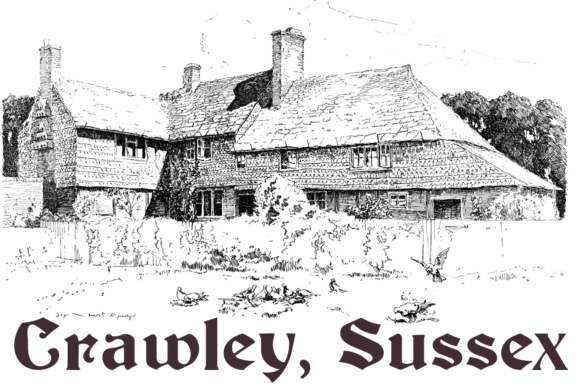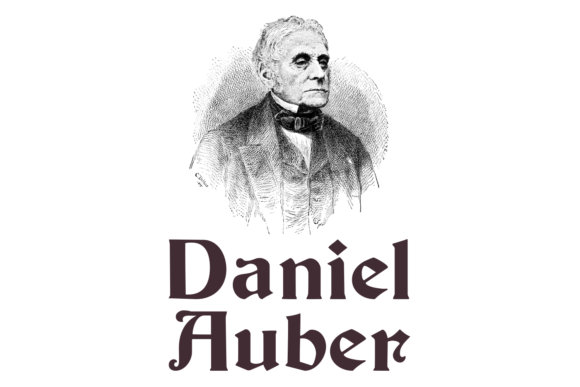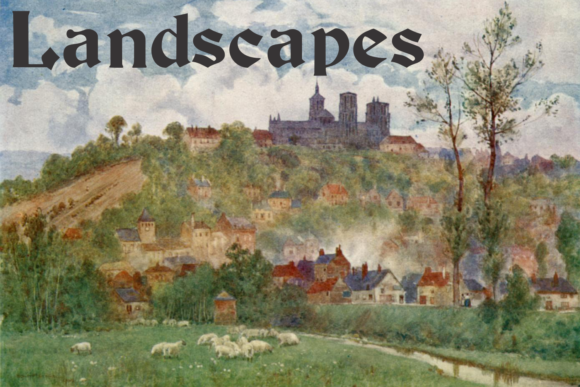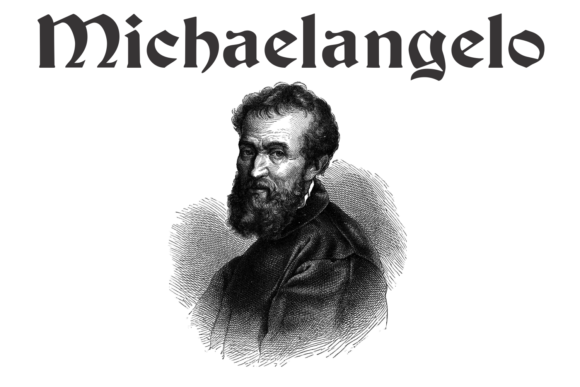
Introduction to Inland Becker Font
Have you ever found yourself stuck in front of a blank canvas, struggling to bring your creative vision to life? That’s exactly where I was when I stumbled upon the Inland Becker Font – a game-changing addition to my design arsenal. As a designer, I’ve learned that sometimes all it takes is the right tool to spark inspiration and take our creative projects to the next level.
With its high-quality design and versatility, the Inland Becker Font is an invaluable resource for any creative project. Whether you’re working on a personal or professional project, this font is sure to elevate your design and make it stand out from the crowd. And the best part? It’s available for free download, making it accessible to designers of all levels.
One of the standout features of the Inland Becker Font is its transparent background, which makes it easy to use in a variety of design contexts. Whether you’re working on a logo, business card, or brochure, this font is sure to provide a clean and sophisticated look that will leave a lasting impression.
Key Features of Inland Becker Font
- High-quality font design suitable for creative projects requiring a unique touch.
- Includes a transparent background, allowing for seamless integration into various design elements.
- Features a modern and elegant design, perfect for use in various creative projects, from logos to typography-based art.
- Designed with a large character set, including uppercase and lowercase letters, numbers, and special characters.
Honest Review: Inland Becker Font
I recently stumbled upon the Inland Becker Font while searching for a high-quality design resource for a creative project. The font caught my eye with its unique aesthetic and I was excited to dive in and see what it had to offer.
One of the standout features of the Inland Becker Font is its ability to work well in a variety of settings. It’s a great addition to any design project that requires a clean and modern look. ✨ I particularly enjoyed using it for a project with a transparent background, as it really made the text pop.
Some of the key benefits of the Inland Becker Font include:
- Available in a variety of weights and styles to suit different design needs
However, there are a few limitations to keep in mind. ⚠️ The font may not be as versatile as some other options, and it may not be suitable for projects that require a more ornate or decorative look.
Overall, I’m really impressed with the Inland Becker Font. It’s a great addition to any design library and I’m excited to continue using it in my future projects.
The Inland Becker Font is a versatile design resource that can be used in a variety of creative projects, including business cards, brochures, and social media graphics. Its unique style and transparent background make it perfect for use in a variety of design elements, such as headings and titles.
Can I use the Inland Becker Font with a transparent background?
Yes, the Inland Becker Font has a transparent background, making it perfect for use in designs with complex backgrounds or overlays. To use the font with a transparent background, simply set the font’s background color to transparent in your design application, or use the font’s built-in transparency feature (if available).